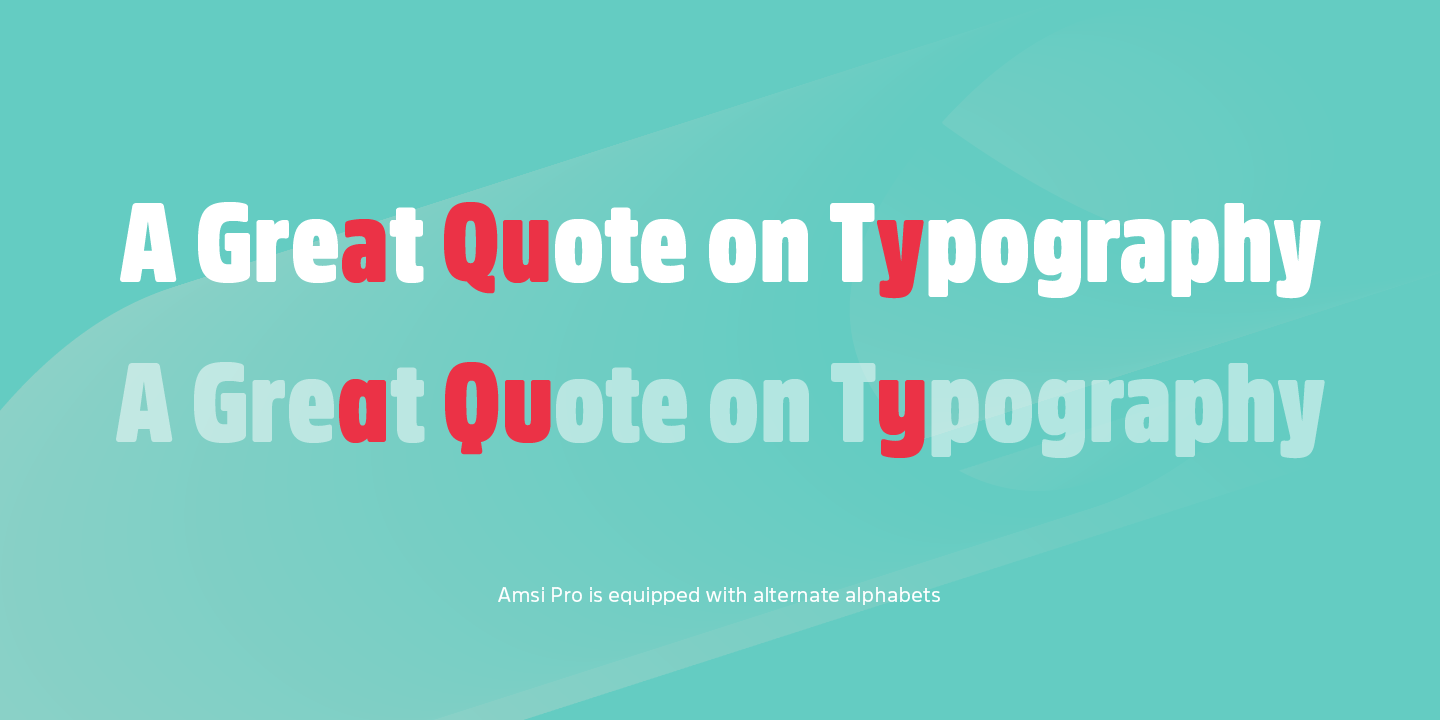
Amsi Pro AKS Font Free Download is a clean and versatile sans-serif typeface perfect for corporate branding, editorial design, websites, advertising, and user interfaces. Its sleek and modern appearance ensures excellent readability across all mediums.
What makes this font so exciting is its balanced geometric structure combined with subtle humanist touches, making it suitable for both formal and creative projects. Amsi Pro AKS Font offers a professional yet approachable vibe to your designs.
Amsi Pro AKS Font includes multiple weights such as Light, Regular, Medium, and Bold, providing designers with the flexibility to create strong and dynamic typographic hierarchies.
Enhance your projects with the polished and adaptable style of Amsi Pro AKS Font Free Download, and communicate your message with clarity and confidence.